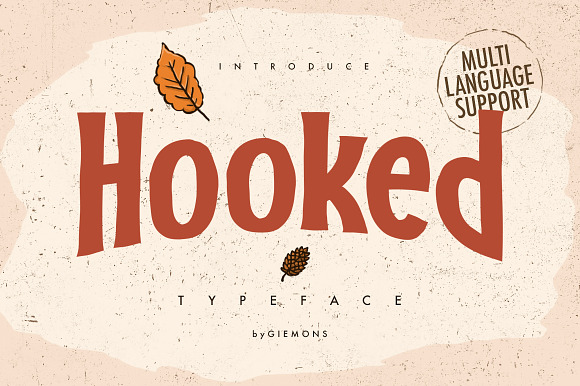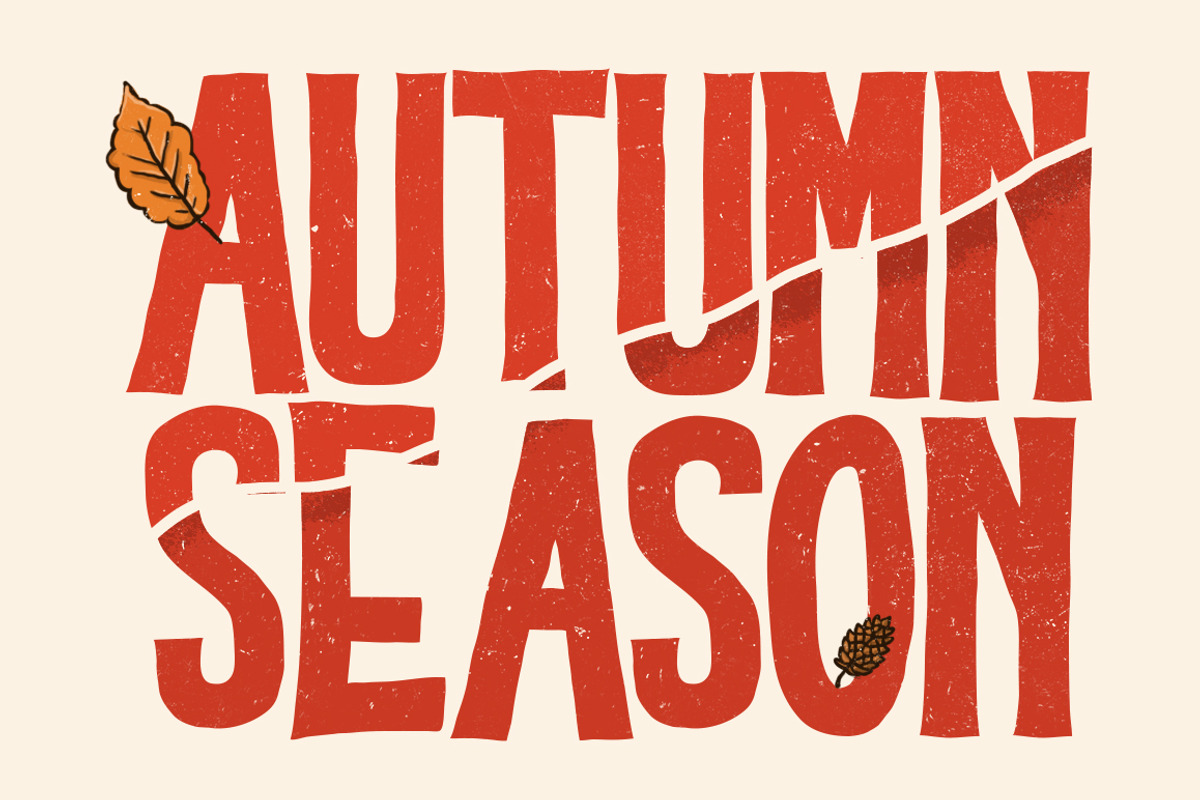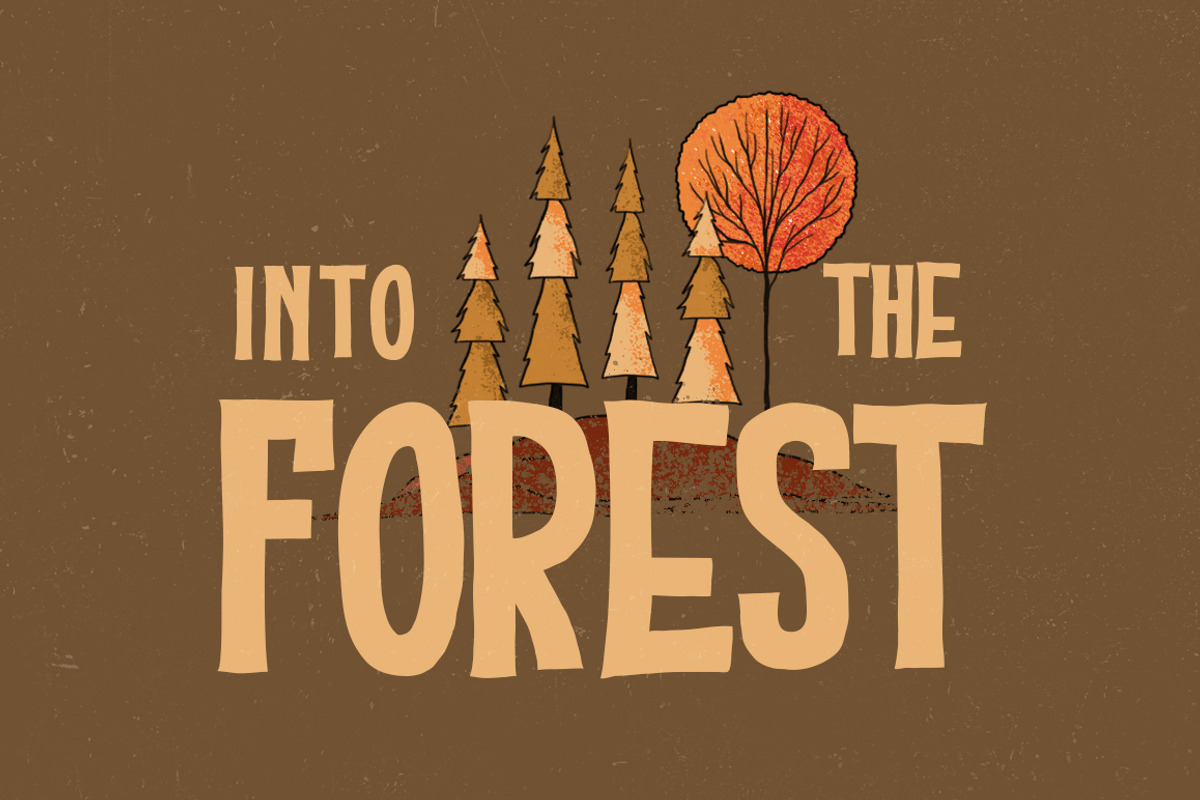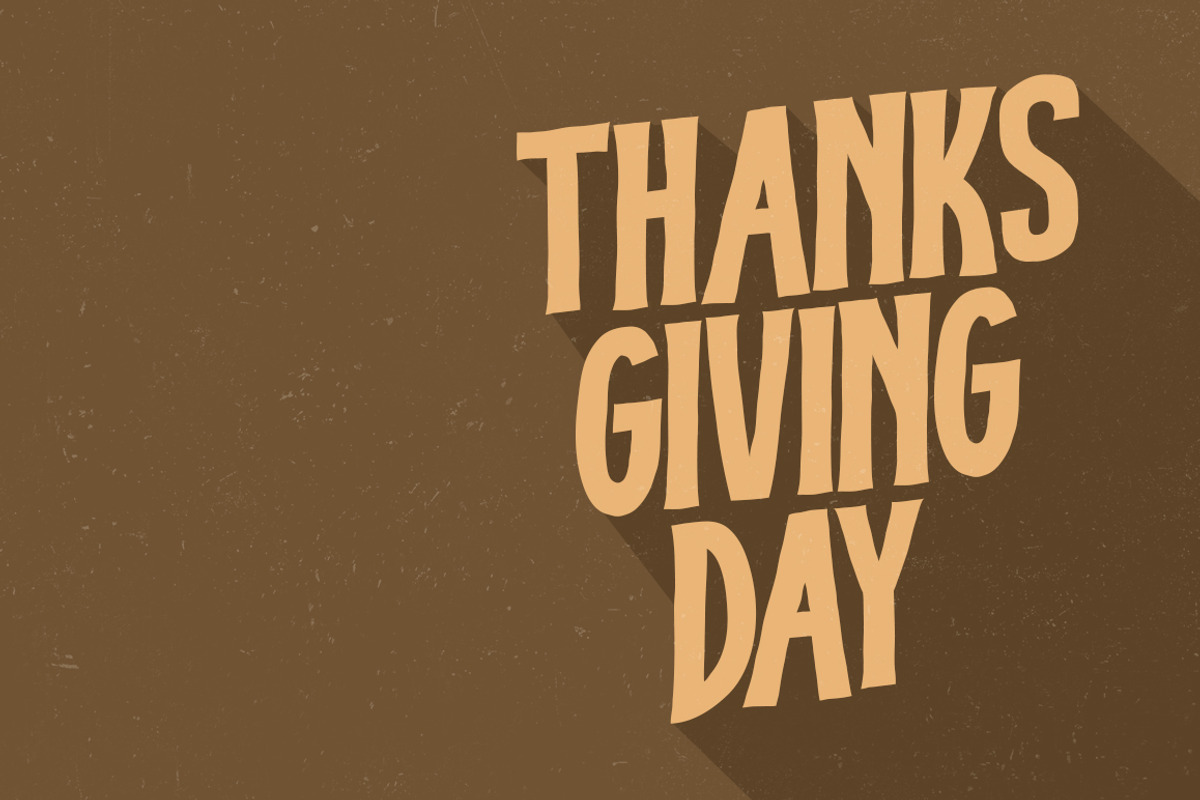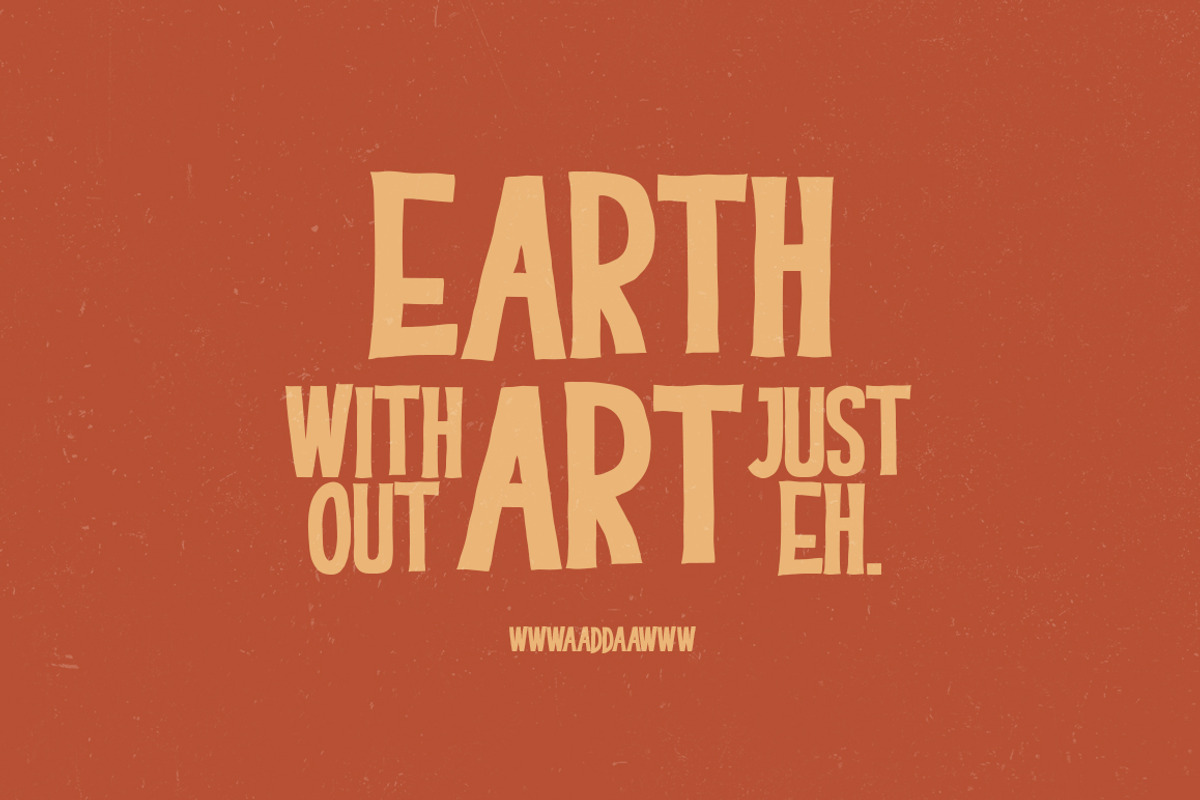
Hooked Typeface
a HOOKED Typeface is Display Font. Can make it easier to convey the message in your design. Use for awesome display, Logo, labeling, clothing, movie sceen, poster, movie title, gigs, album covers, logos, and much more.
Multilanguage Support
Hooked Typeface by giemons™ fits naturally into Branding, posters, packaging, typography.